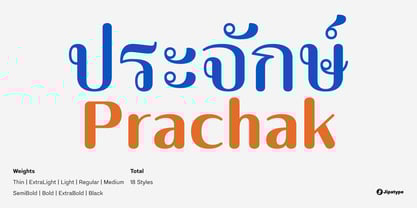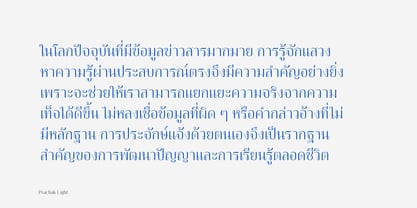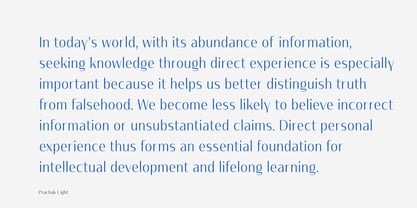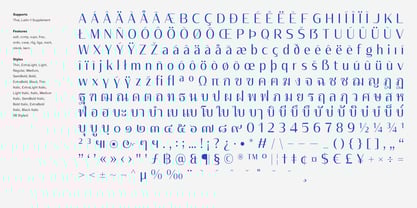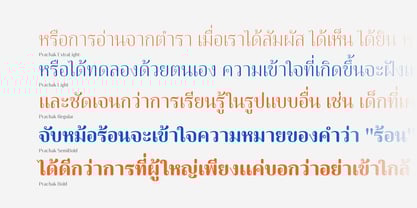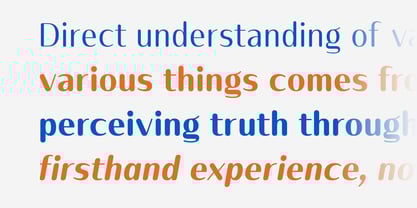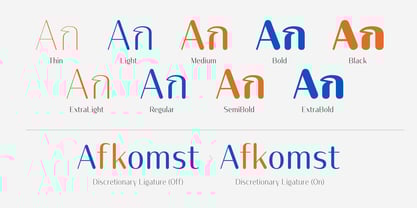
Prachak
by Jipatype
The Prachak Font Family was designed by Anupap Jaichumnan and published by Jipatype. Prachak contains 18 styles and family package options. More about this family
Prachak is a typeface inspired by the Pong typeface family, particularly the Pong Mai typeface. The Pong typefaces became popular after the 1932 Siamese Revolution, during a period of rapid growth in the newspaper industry. Pong was used in newspaper headlines to create eye-catching, prominent displays. The Prachak typeface is a reinterpretation by Jipatype, modified for simplicity and enhanced style, offering 18 different variations. It supports both Thai and Latin-1 characters.
Designers: Anupap Jaichumnan
Foundry: Jipatype
Jipatype is a one-man type foundry based in Bangkok, Thailand, officially established in 2022 but operating since 2019 by Anupap Jaichumnan. The foundry's name comes from the Thai word จิปาถะ, which translates to "miscellaneous", "assorted", or "various". This reflects the variety of design approaches and influences that are present in its typefaces. Jipatype creates fonts that blend traditional Thai design elements with modern typography trends. Each typeface is developed with careful attention to both aesthetic details and practical usability, making them suitable for a range of design projects. The work at Jipatype is characterized by a straightforward and functional approach to design, without unnecessary embellishment, aiming to provide clear and effective typographic solutions.